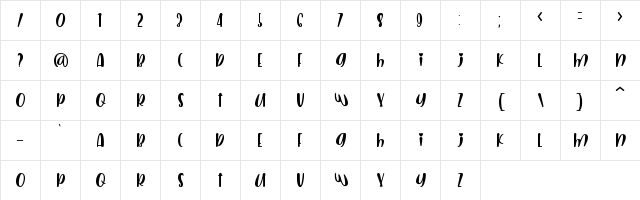
Imagine Dreams Personal Use Onl Regular
Design Context for Imagine Dreams Personal Use Onl Typeface
Imagine Dreams Personal Use Onl is a composed and adaptable typeface that performs quietly and consistently across a wide range of design contexts.
Pro Tip: Use Imagine Dreams Personal Use Onl in both headline and body roles to test its range before committing to a single application.